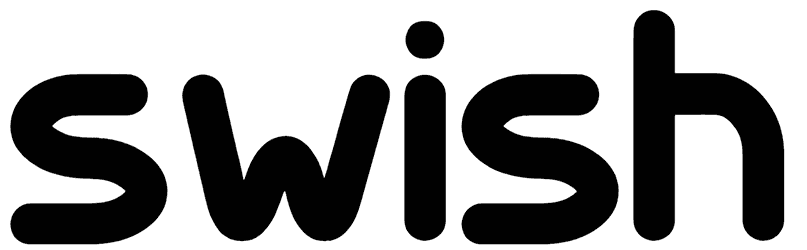
Swish Font
Designed byEric Djengue
Swish font, with the amount of complexity in designing the letter, has created enthralling mimics in the font. The rounded font with circular edges adds a smooth feel to your designs.
However, audiences might have problems with its readability. This sans serif font will be exactly what you need to give more regularity to your designs. This circular font is suitable for game graphics, t-shirts, toys, and birthday theme parties.
Swish (formerly Wigz)is designed as a font character title.
Eric Djengué created Swish font.